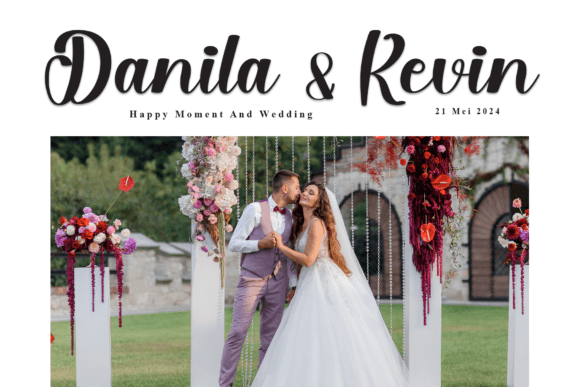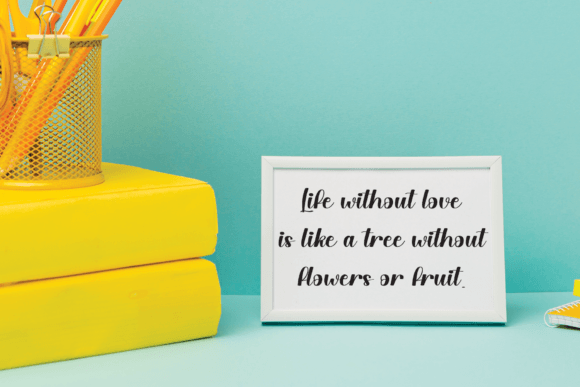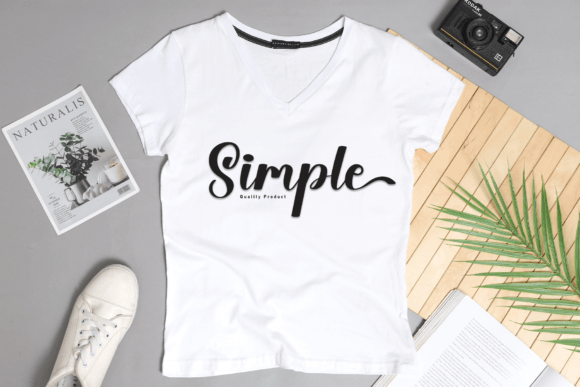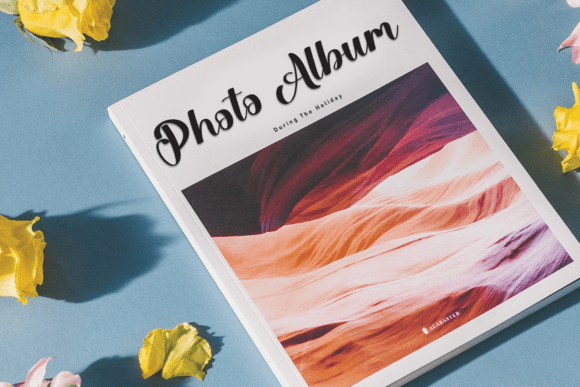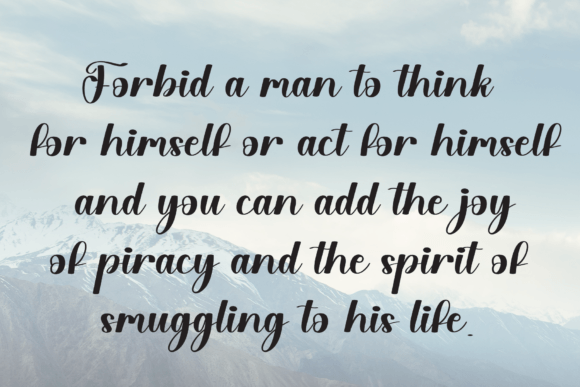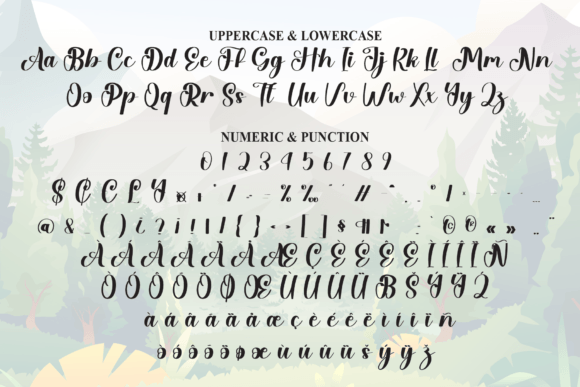
Introduction to Hello Anime Font
Introducing the enchanting charm of a handcrafted font that exudes a delightful blend of sweetness and friendliness.
Packed with cuteness and vibrancy, this font breathes life into wedding invites, personal notes, greeting cards, or any creative design craving for a dash of fun Itโs more than just letters and characters โ itโs about adding a personal, playful twist to your creativity.
Key Features of Hello Anime Font
Why Choose Hello Anime Font?
Hello Anime Font offers exceptional quality and versatility, making it a valuable addition to your design toolkit. Whether you’re creating for personal projects or commercial use, Hello Anime Font delivers professional results.